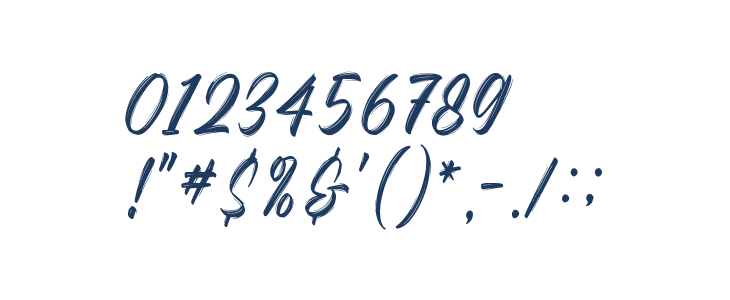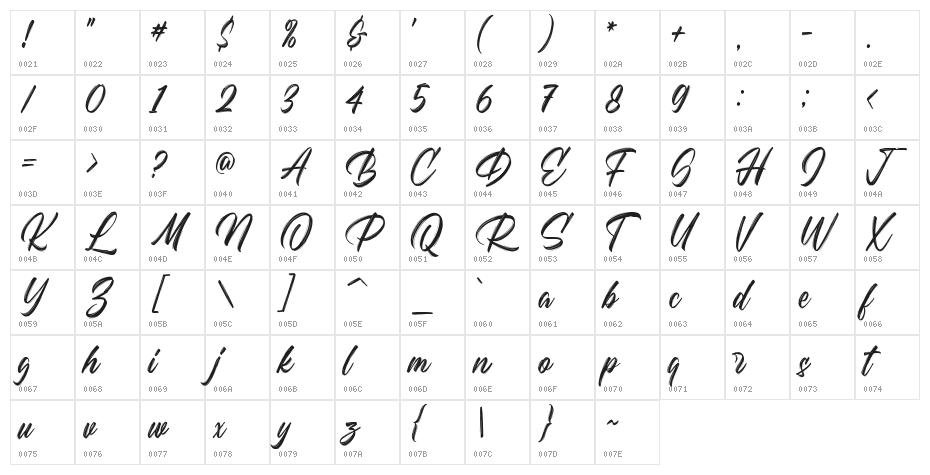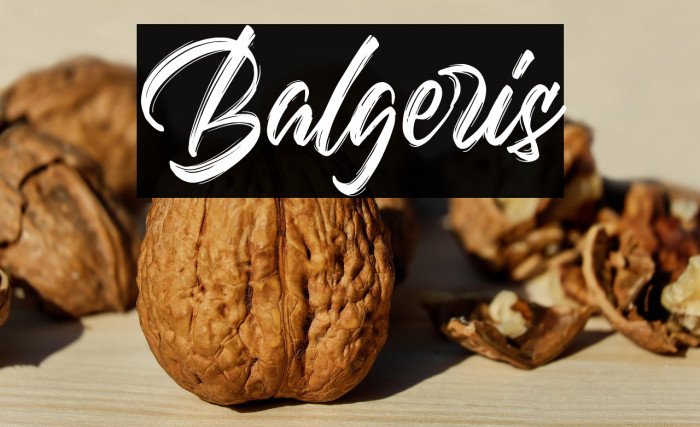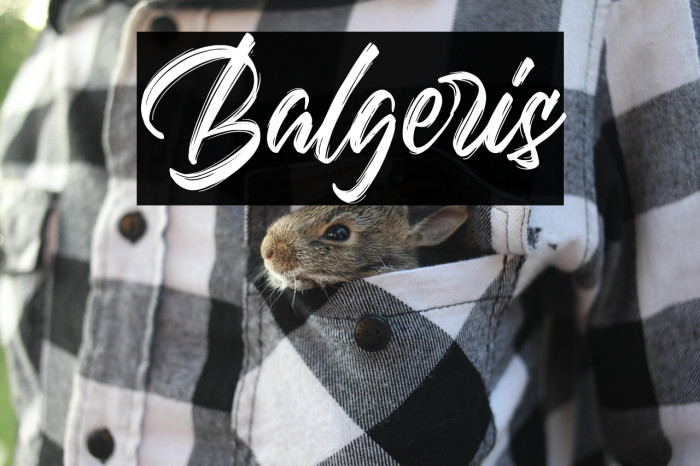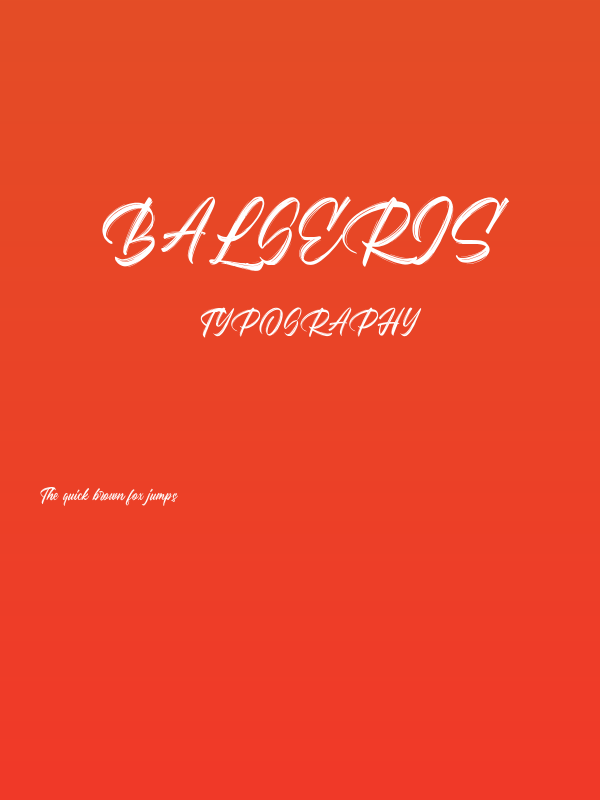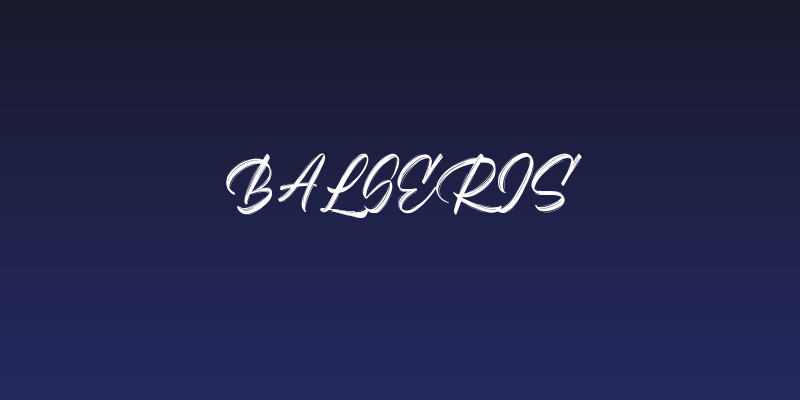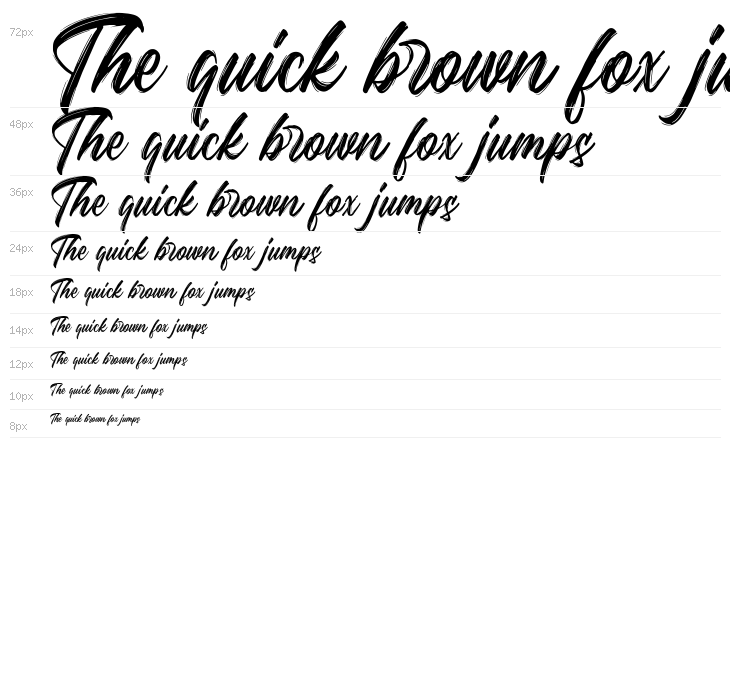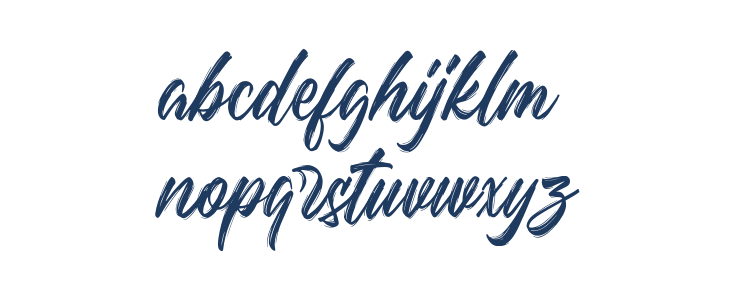
Balgeris Font
Balgeris Description
This font exhibits a dynamic and expressive style, characterized by its flowing, cursive script. The letters are elegantly connected, creating a sense of movement and fluidity. The strokes are bold and confident, with a slight slant that adds to the overall graceful appearance. The uppercase letters are particularly striking, with sweeping curves and loops that enhance their decorative appeal. The lowercase letters maintain a consistent style, ensuring readability while preserving the artistic flair. Numbers and special characters are designed to match the overall aesthetic, making this font versatile for various applications.
| Use Case | Logos, Invitations, Greeting Cards |
| Proposed Projects | Ideal for wedding invitations, greeting cards, branding, and logo design where a personal, artistic touch is desired. |